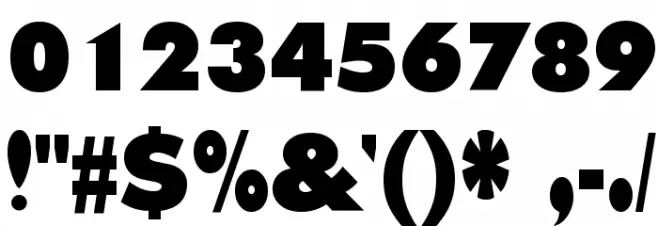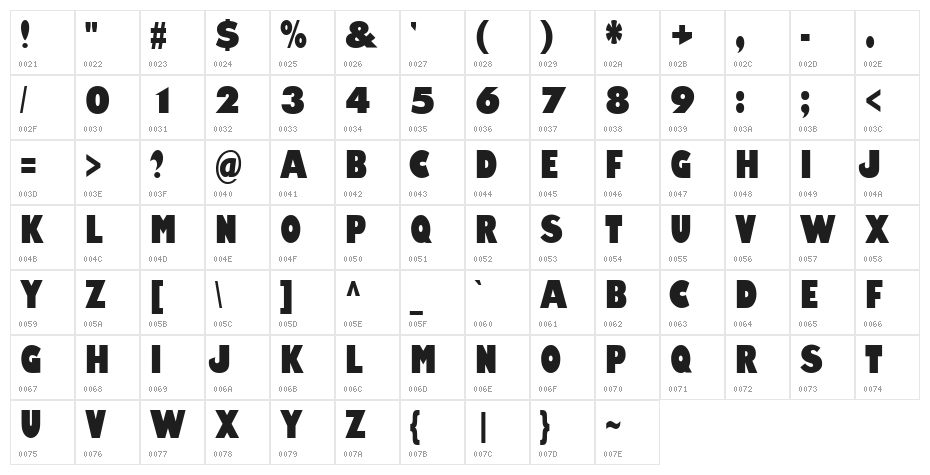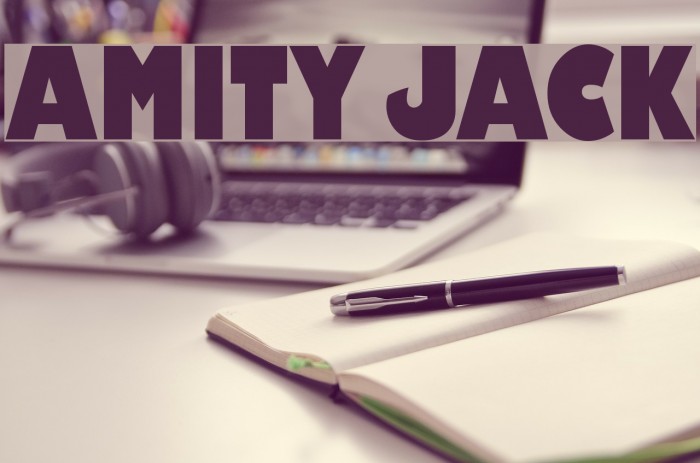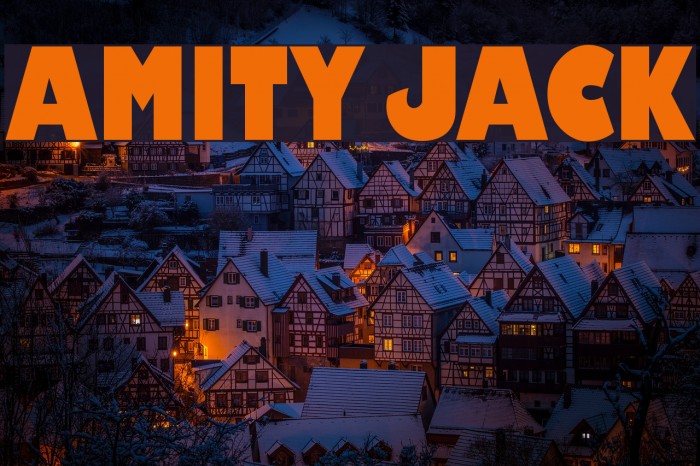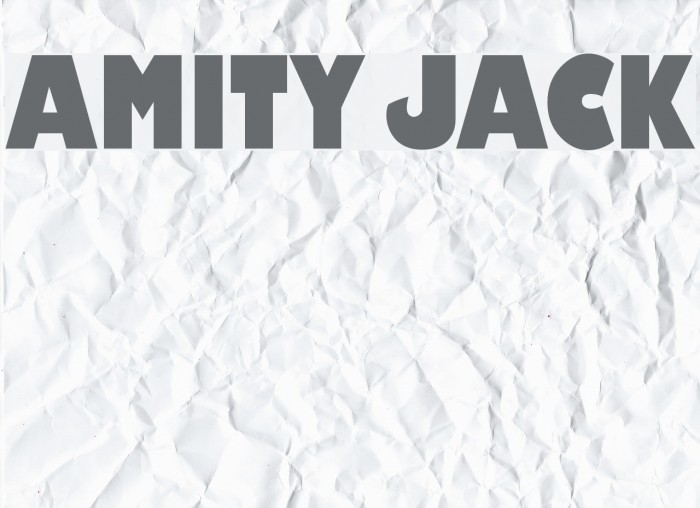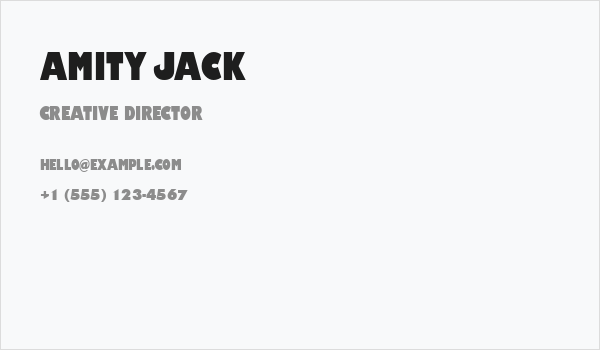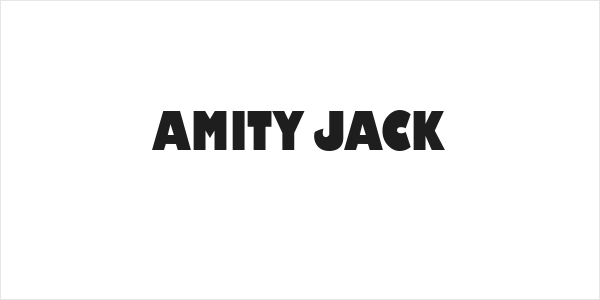
Amity Jack Font
Amity Jack Description
This bold and impactful font features thick, uniform strokes that create a strong visual presence. The characters are designed with a slight geometric influence, providing a modern and assertive look. The uppercase letters are particularly striking, with a consistent height and width that enhance readability. The numbers and special characters maintain the same boldness, ensuring a cohesive appearance across all text elements. This font's solid structure and clear lines make it ideal for attention-grabbing designs.